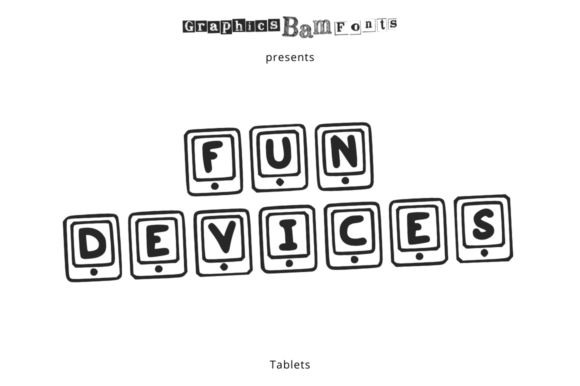
Get ready to embark on a captivating typographic adventure with Fun Devices Tablet Font, the ultimate display font for those seeking to ignite their designs with a touch of whimsy and charm. This extraordinary font, crafted by the visionary minds at GraphicsBam Fonts, seamlessly blends playful aesthetics with unparalleled functionality, making it an essential tool in your creative arsenal.
Fun Devices Tablet Font is not just a mere collection of letters and symbols; it's a gateway to a world of boundless imagination and limitless possibilities. This remarkable font family boasts an array of typographic wonders, including tablet, desktop, and laptop devices, each meticulously designed to add a touch of technological flair to your creations. Whether you're a seasoned designer or just starting your typographic journey, Fun Devices Tablet Font is the perfect companion to elevate your designs to new heights.
With its captivating curves and playful spirit, Fun Devices Tablet Font possesses a unique ability to transform ordinary designs into extraordinary masterpieces. Its versatile nature makes it an ideal choice for a wide range of projects, from eye-catching T-shirt designs to captivating social media posts. Unleash your creativity and let Fun Devices Tablet Font guide you through a world of typographic possibilities.
The possibilities with Fun Devices Tablet Font are endless. Its playful spirit and technological charm will add a touch of whimsy to your designs, making them stand out from the crowd. So, why settle for ordinary fonts when you can embrace the extraordinary? Download Fun Devices Tablet Font today and embark on a typographic adventure that will ignite your imagination and leave a lasting impression on your audience.